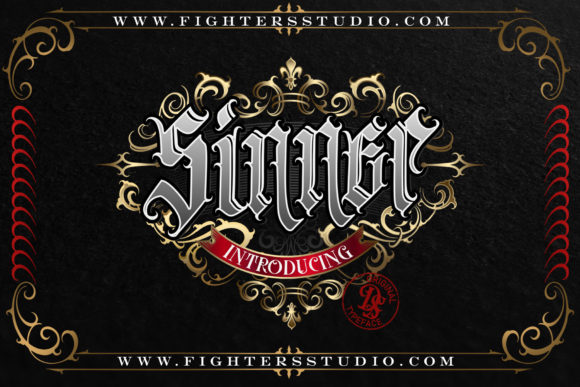
Step into a world of artistic darkness and unveil the captivating Sinner Font, a masterpiece of blackletter calligraphy. This extraordinary creation by Dansdesign is not just a font; it's an invitation to unleash your creativity, explore the unexplored, and leave an indelible mark on the world of design.
Sinner Font is not your average typeface; it's a journey through the depths of artistic expression. Its intricate strokes, sharp edges, and mesmerizing curves ignite the imagination and transport you to a realm where creativity knows no bounds. Whether you're a seasoned designer or just starting your creative voyage, Sinner Font is your trusted companion, ready to elevate your designs to new heights.
With Sinner Font, every word you type becomes a work of art. Its bold presence commands attention, while its elegant curves add a touch of sophistication to your creations. Logos, posters, album covers, and even tattoos – Sinner Font is the perfect choice for any project that demands a touch of darkness and intrigue.
Don't miss this opportunity to harness the power of Sinner Font and unlock your creative potential. Embrace the darkness and watch as your designs transform into captivating masterpieces that resonate with your audience. Dive into the world of Sinner Font and let your creativity run wild!